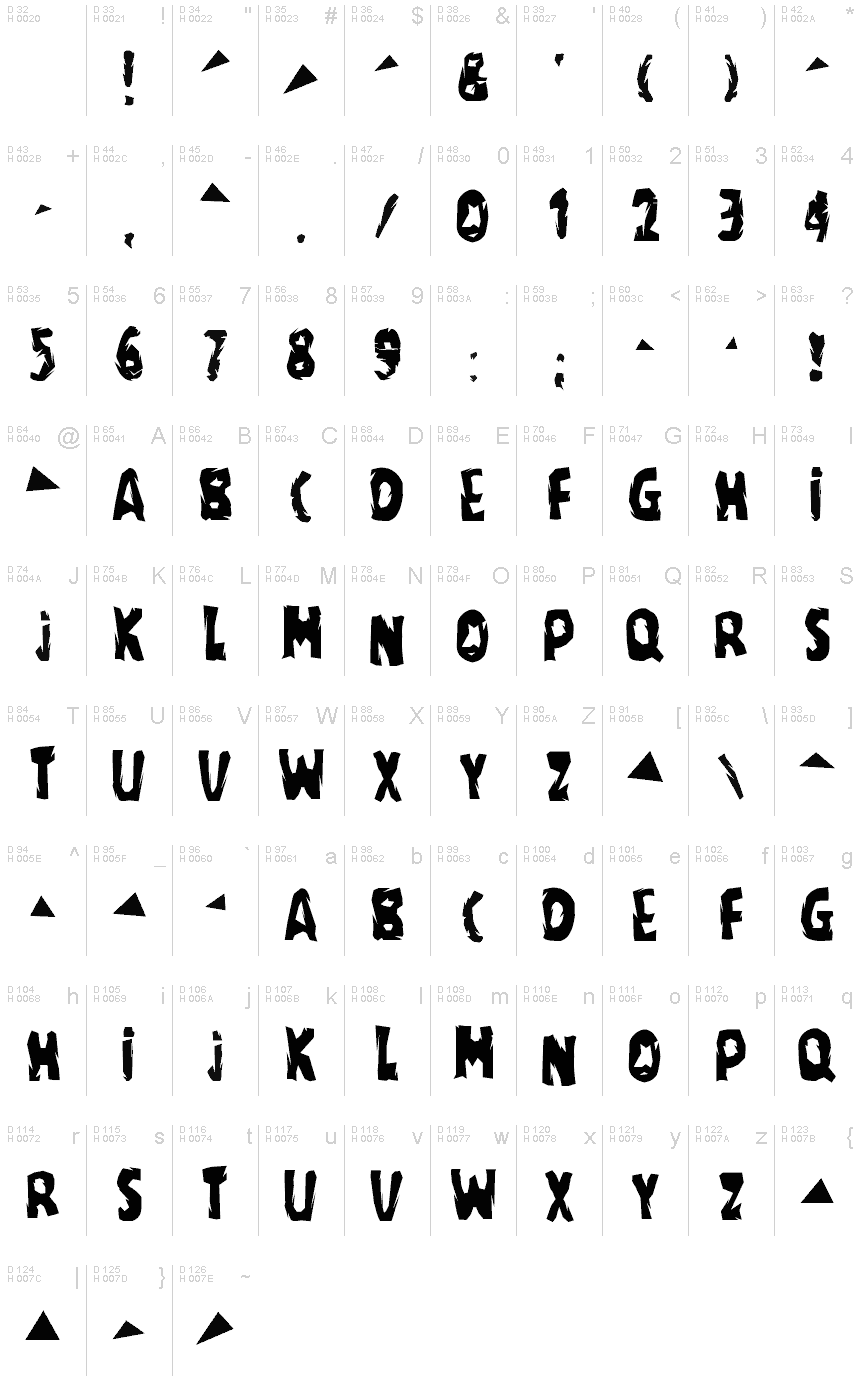
regime
Regime, a bold display font crafted by Dynasty, t.h.e, stands out with its distinctive distorted style and condensed width. Its robust weight commands attention, making it an impactful choice for headlines and statements that demand to be noticed. The Regime font exudes a sense of controlled chaos, offering an aesthetic that is both assertive and artistically expressive.
The intentional distortion gives each character a dynamic appearance, suggesting movement and energy. This makes Regime particularly suitable for creative projects that aim to break the mold and attract an audience with an edgy visual appeal. From avant-garde fashion branding to contemporary art installations or cutting-edge editorial designs, Regime's unique characteristics ensure it will leave a lasting impression.
Embrace the power of Regime for designs that require a typeface with presence and personality – where every word is not just read but felt.
The intentional distortion gives each character a dynamic appearance, suggesting movement and energy. This makes Regime particularly suitable for creative projects that aim to break the mold and attract an audience with an edgy visual appeal. From avant-garde fashion branding to contemporary art installations or cutting-edge editorial designs, Regime's unique characteristics ensure it will leave a lasting impression.
Embrace the power of Regime for designs that require a typeface with presence and personality – where every word is not just read but felt.
Dynasty, t.h.e